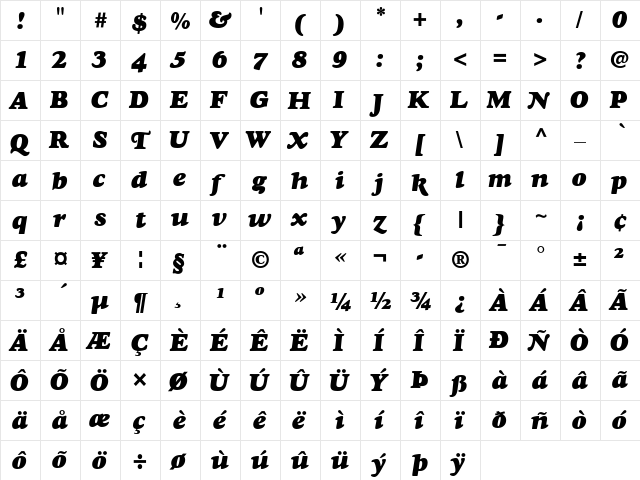
Goudy Heavyface Italic
Design Context for Goudy Heavyface Typeface
Goudy Heavyface takes a measured approach to typography — its balanced proportions and neutral character make it a reliable workhorse for both digital and print work. The dynamic lean of this cut emphasises speed and emphasis in any layout.
Pro Tip: Use Goudy Heavyface for emphasis, pull quotes, and subheadings where its slanted energy can add rhythm to the layout.